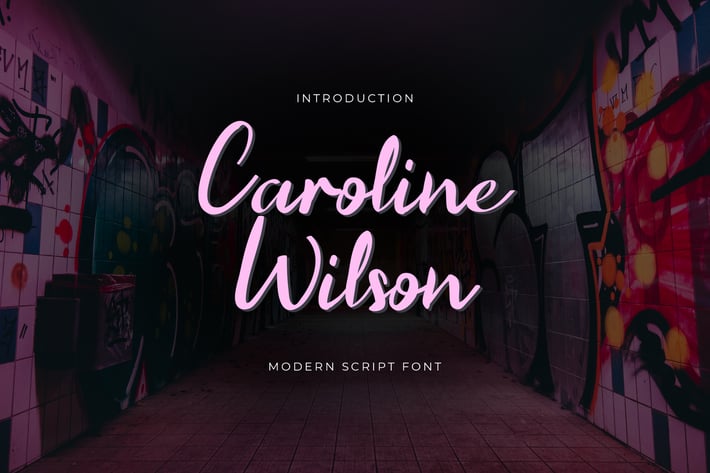
Caroline Wilson Handwritten Font
Caroline Wilson is perfect Handwritten Font for branding projects, logo, wedding designs, social media posts, advertisements, product packaging, product designs, label, photography, watermark, invitation, stationery, and any projects that need handwriting taste.
This font has a feeling of playful joyfulness and genuine hand-lettered appearance book covers, stationery, marketing, magazines, film, logo, branding, poster, and other printing design.